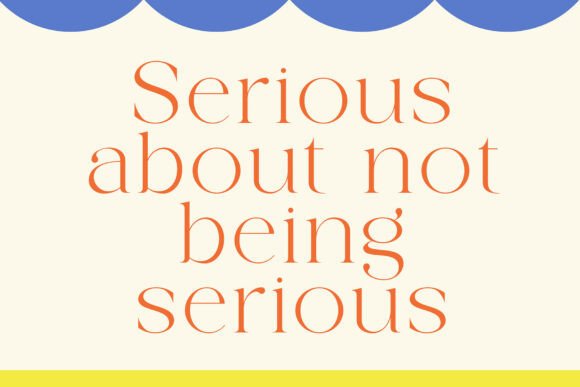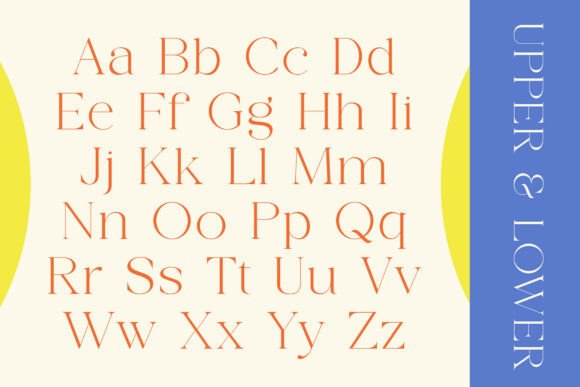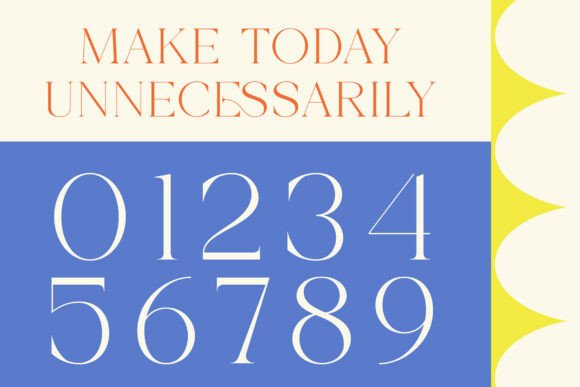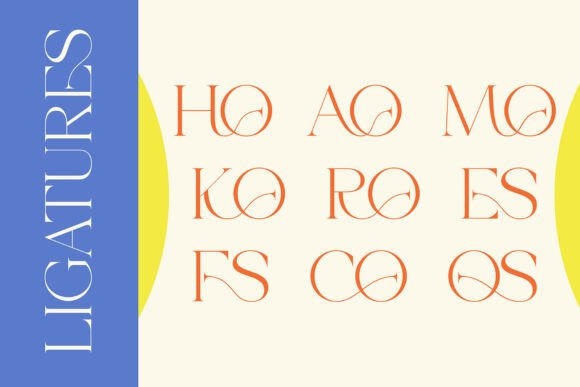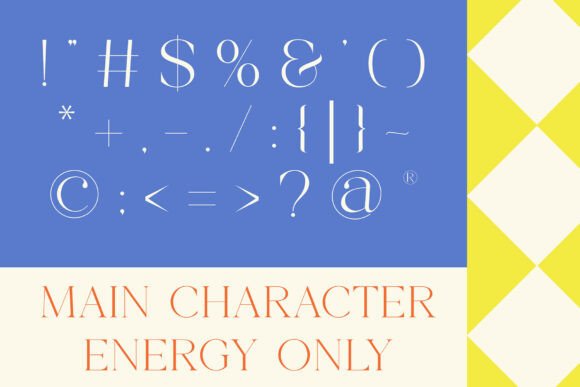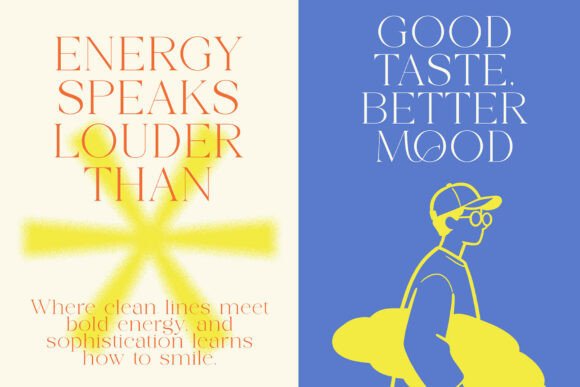
Introduction to Romes Font
Have you ever found yourself staring at a blank canvas, eager to bring a creative project to life, but struggling to find the perfect font to set the tone? As designers, we’ve all been there. The search for that elusive font can be a daunting task, but what if I told you that your search is over? Introducing Romes Font, the modern serif font that’s about to revolutionize your design game.
Romes Font is more than just a font – it’s a statement piece that exudes sophistication and elegance. With its high-contrast geometry and playful silhouette, it’s the perfect addition to any design project. Whether you’re working on a cinematic title, luxury editorial header, or boutique branding, Romes Font is sure to deliver. And the best part? It’s a free download, making it an accessible design resource for creatives of all levels.
Romes Font
- High-quality font design, perfect for any creative project
- Unique, elegant design, perfect for adding a touch of sophistication to your design resource
Honest Review: Romes Font
What works well: ✨ The font is incredibly versatile and can be used in a range of design applications, from logos to typography. The clean and modern design makes it easy to read and understand, even at small font sizes. The font also comes in a range of weights and styles, making it easy to customize to suit my needs.
Overall impression: I’m really impressed with the Romes Font, and I think it’s a great addition to any designer’s toolkit. While it may have some limitations, the font’s high quality and versatility make it a great choice for any creative project.
- High quality design resource
- Range of weights and styles
- Limited in scope compared to other fonts
The Romes Font is perfect for a variety of creative projects, including:
- Typography
- Logos
- Social media posts